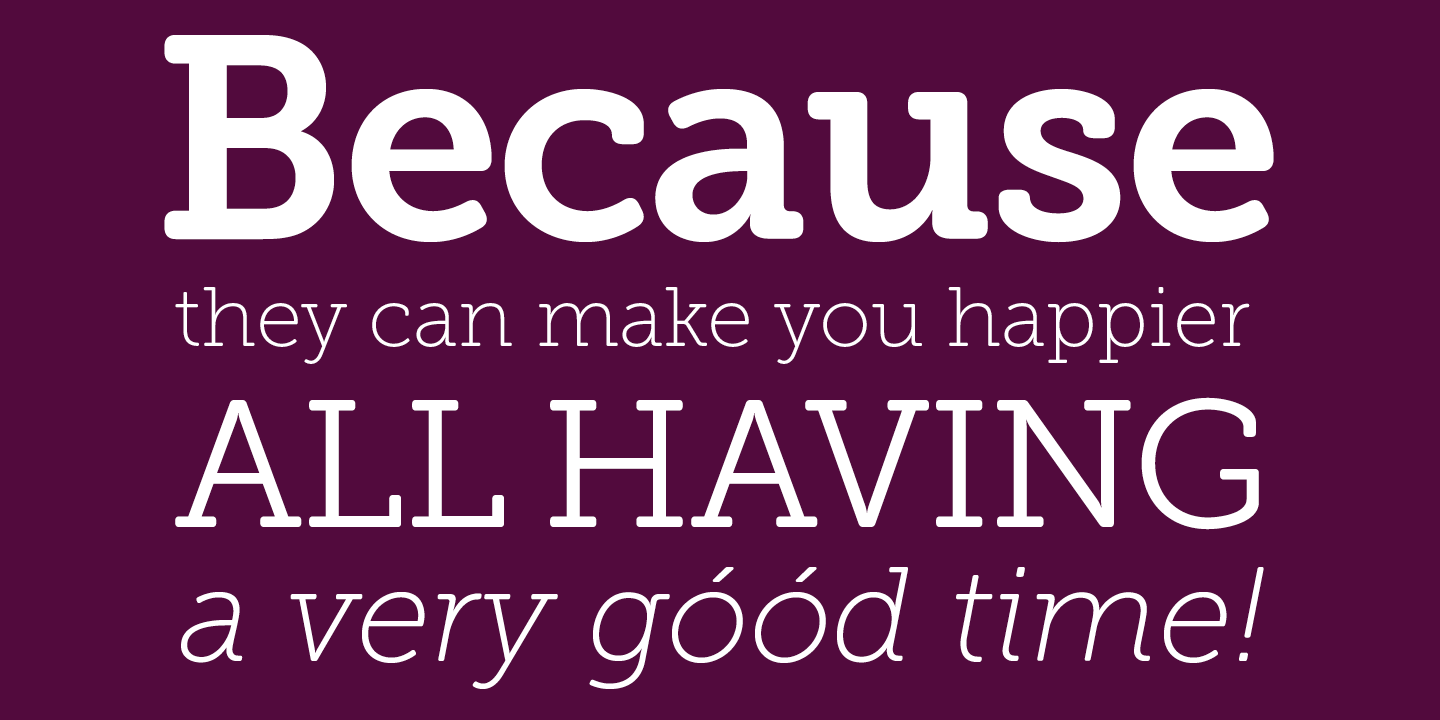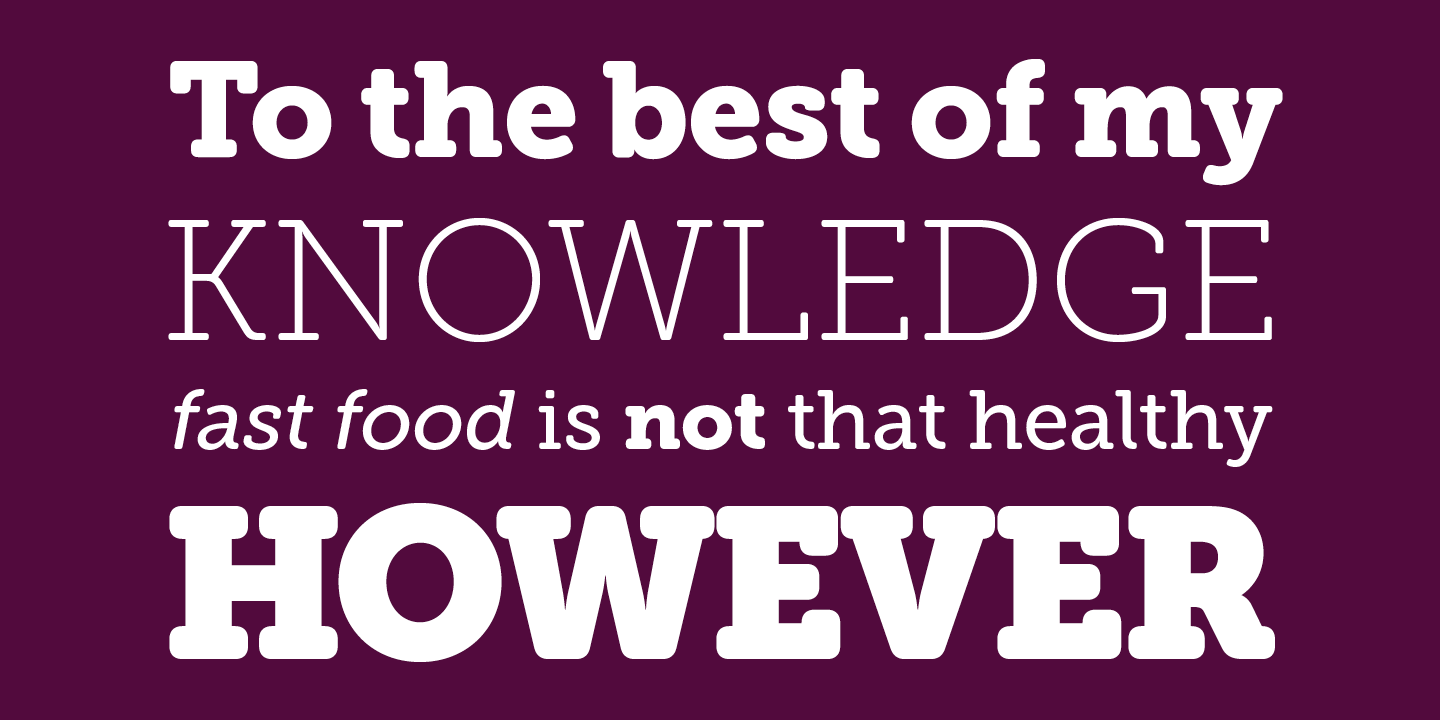
About Museo Slab Rounded
One of the most friendly Slab Serifs just got even more friendly. Museo Slab Rounded is the latest addition to the Museo font family. It has updated letterforms, spacing and kerning. It can perfectly be combined with Museo Sans Rounded. It comes in six…